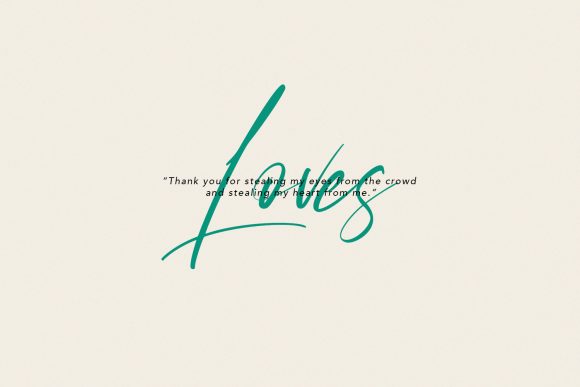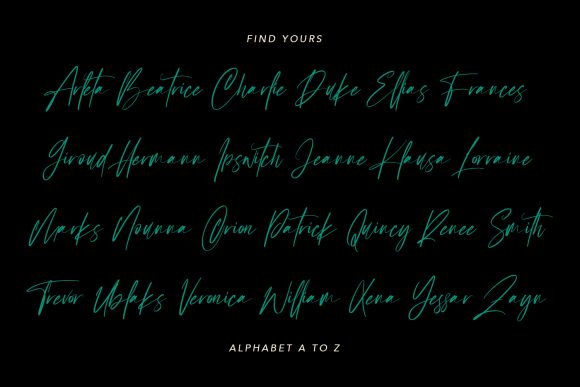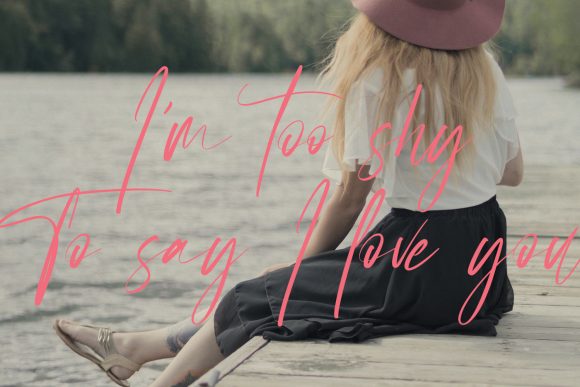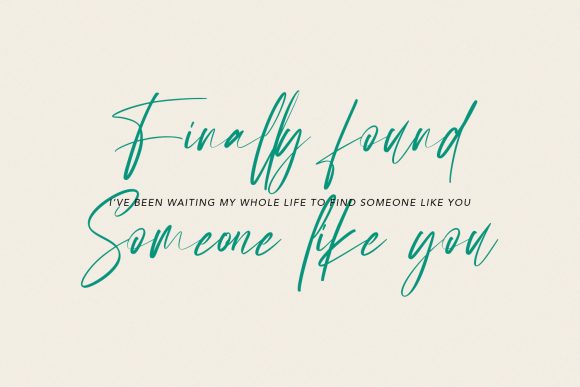
Corestairs Font
About Corestairs Font
Corestairs is an elegant script font, that features a very delicate and classy look. Not too thin and not too thick, balanced and varied, Corestairs was designed to enhance the beauty of your projects.